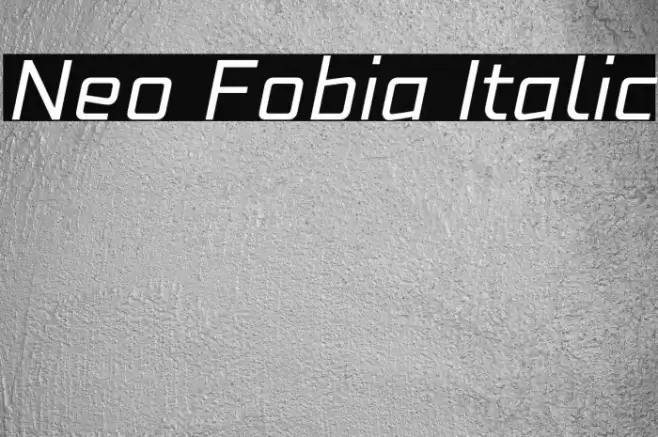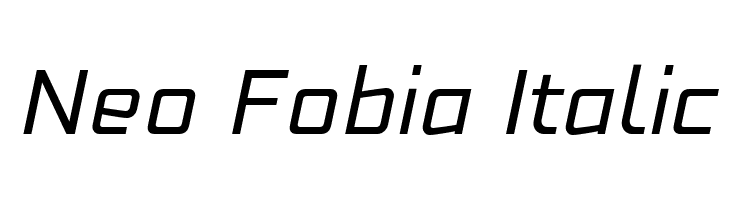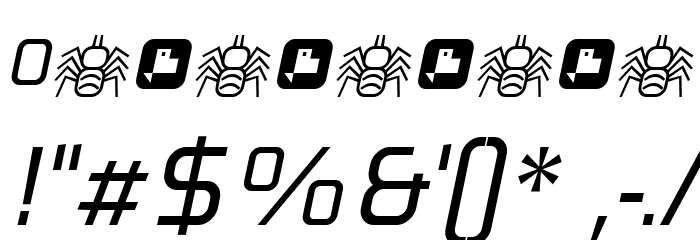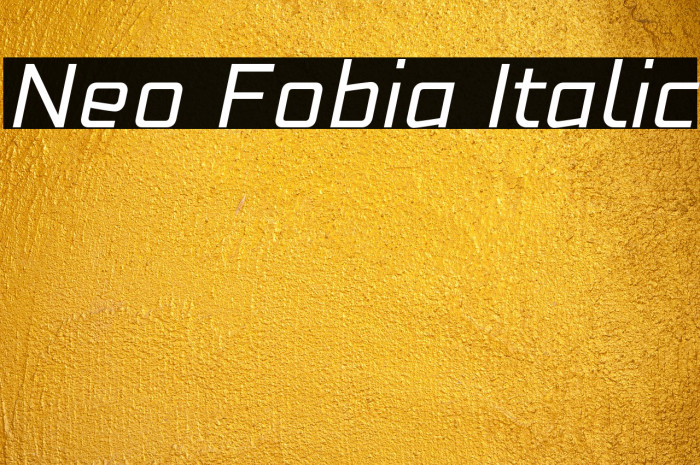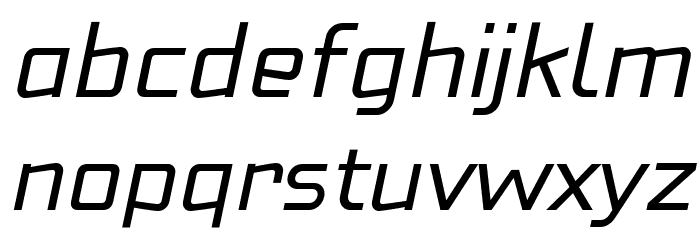
Neo Fobia Italic Font
Neo Fobia Italic Description
This font features a sleek, modern design with a distinct italic slant, giving it a dynamic and forward-moving appearance. The characters are slightly condensed, contributing to a streamlined look. The strokes are consistent in thickness, providing a uniform and clean aesthetic. The uppercase and lowercase letters maintain a harmonious balance, with rounded edges that soften the overall feel. The numerals and special characters are designed to match the letterforms, ensuring visual coherence across all elements. This font is suitable for projects that require a contemporary and professional touch.
A modern, italic font with a sleek, dynamic design and consistent stroke thickness from Uncategorized fonts.
- Proposed Projects: Ideal for branding, advertising, digital media, and editorial design where a modern and professional appearance is desired.
- Use Case: Headlines, Logos, Digital Media